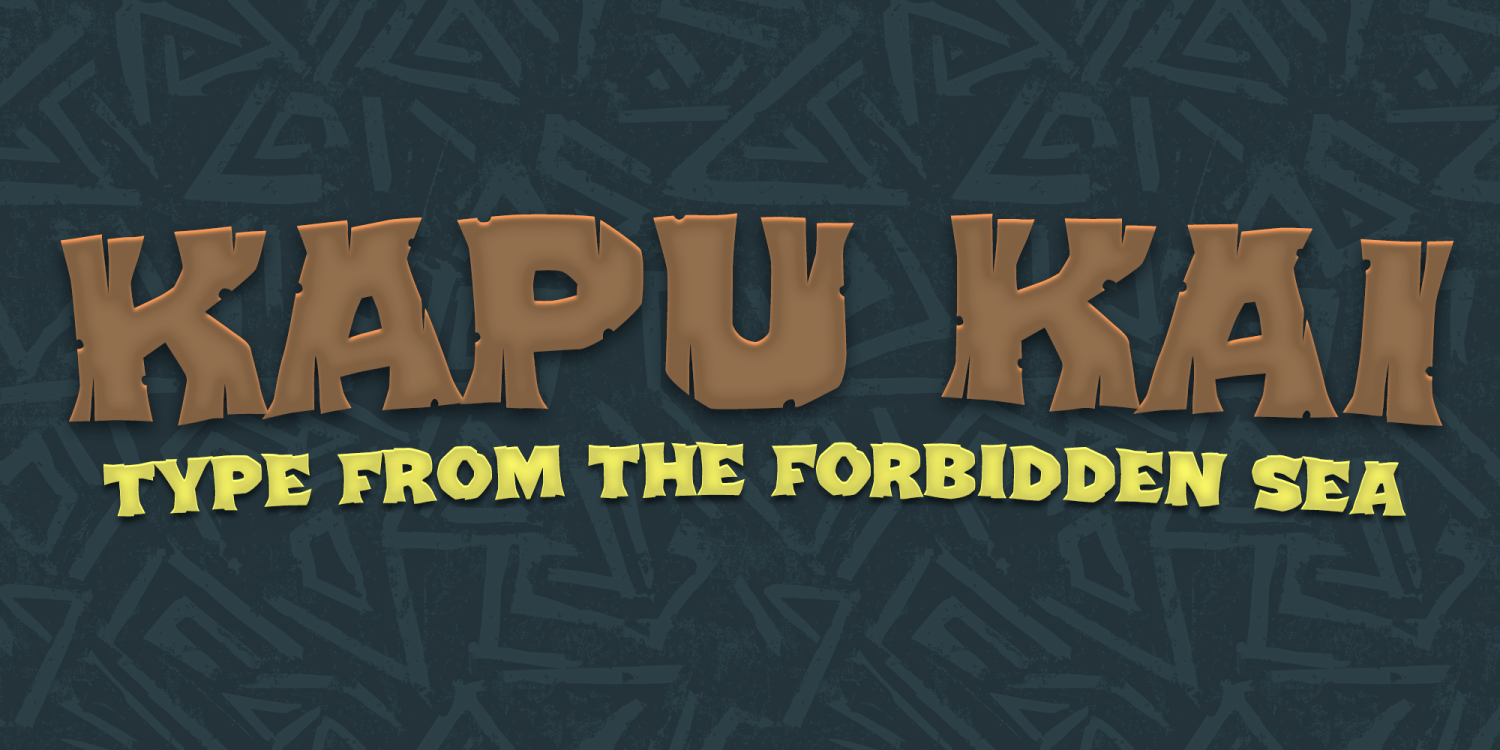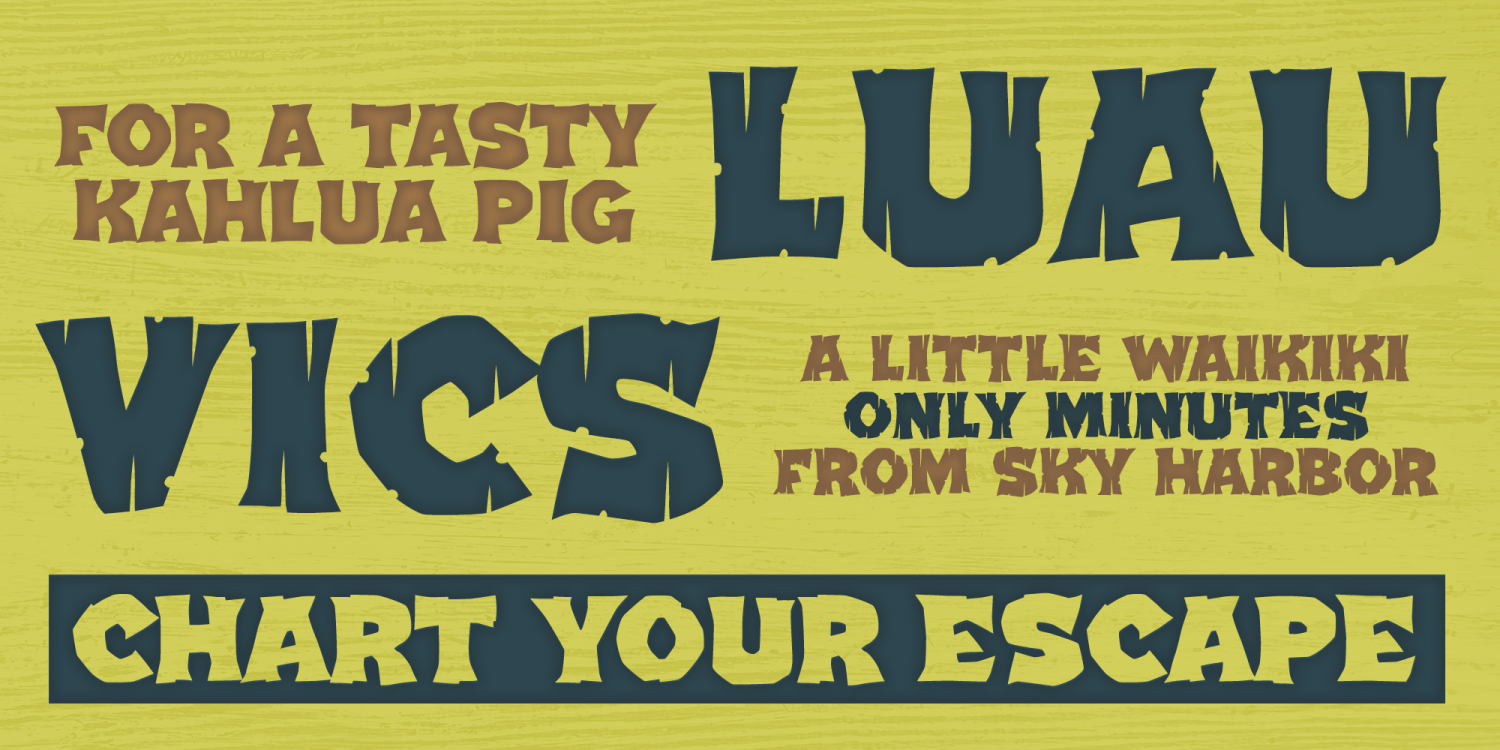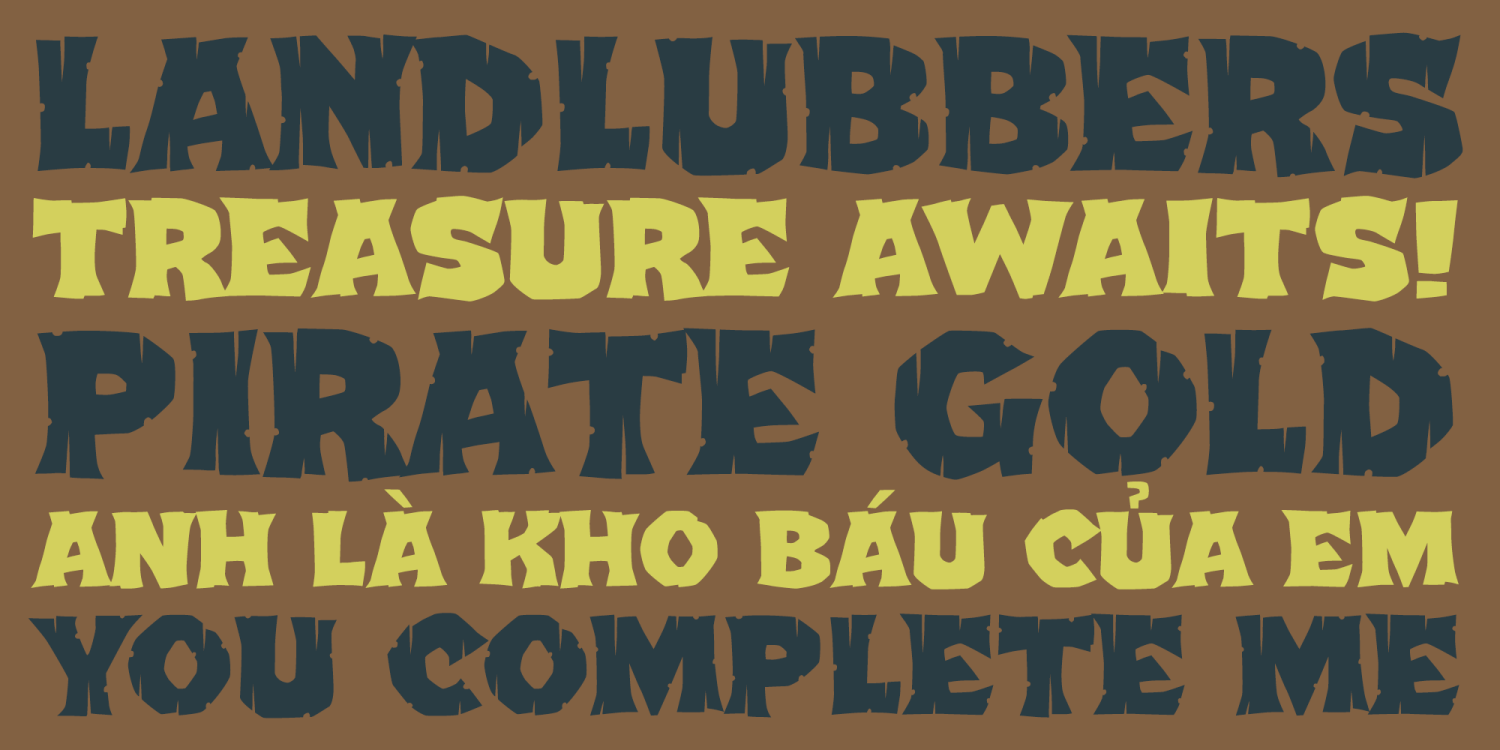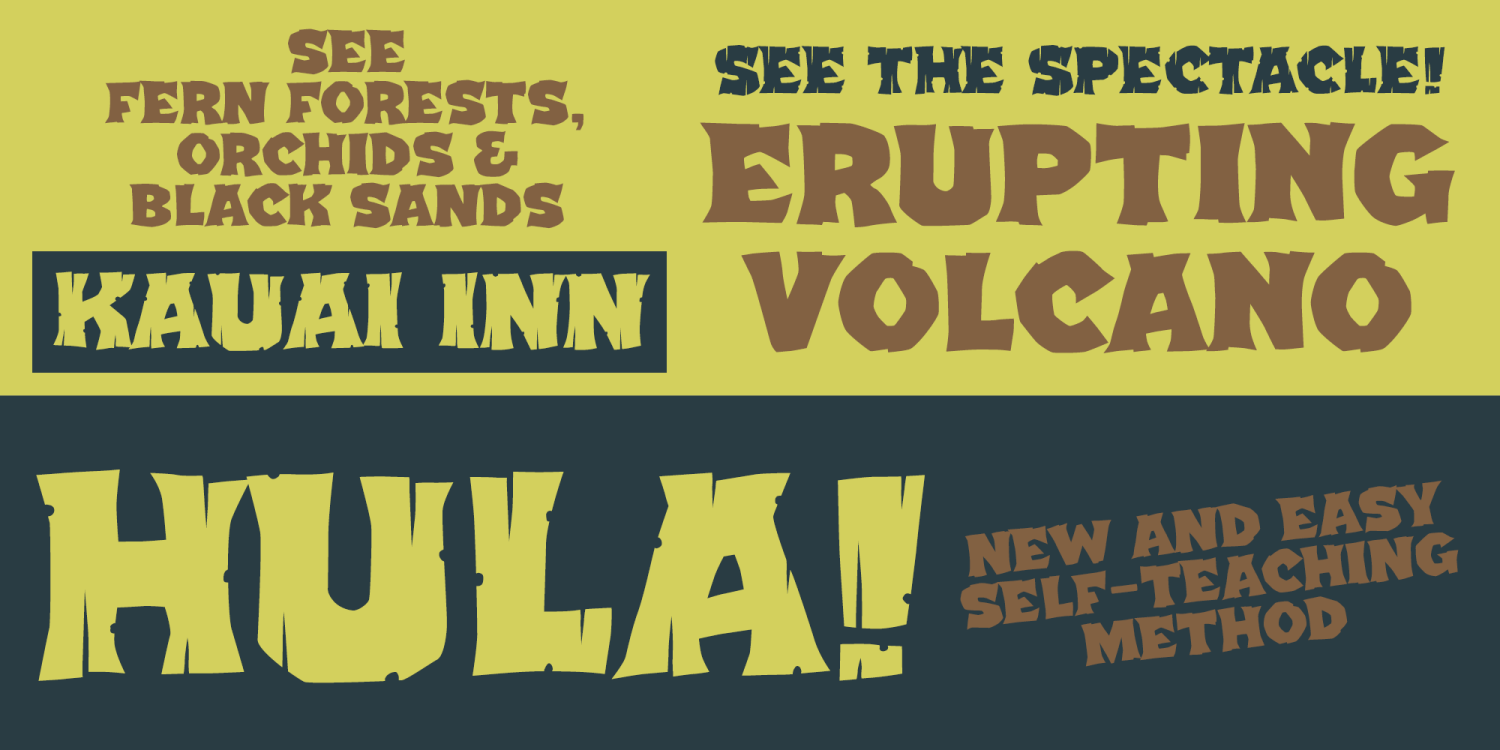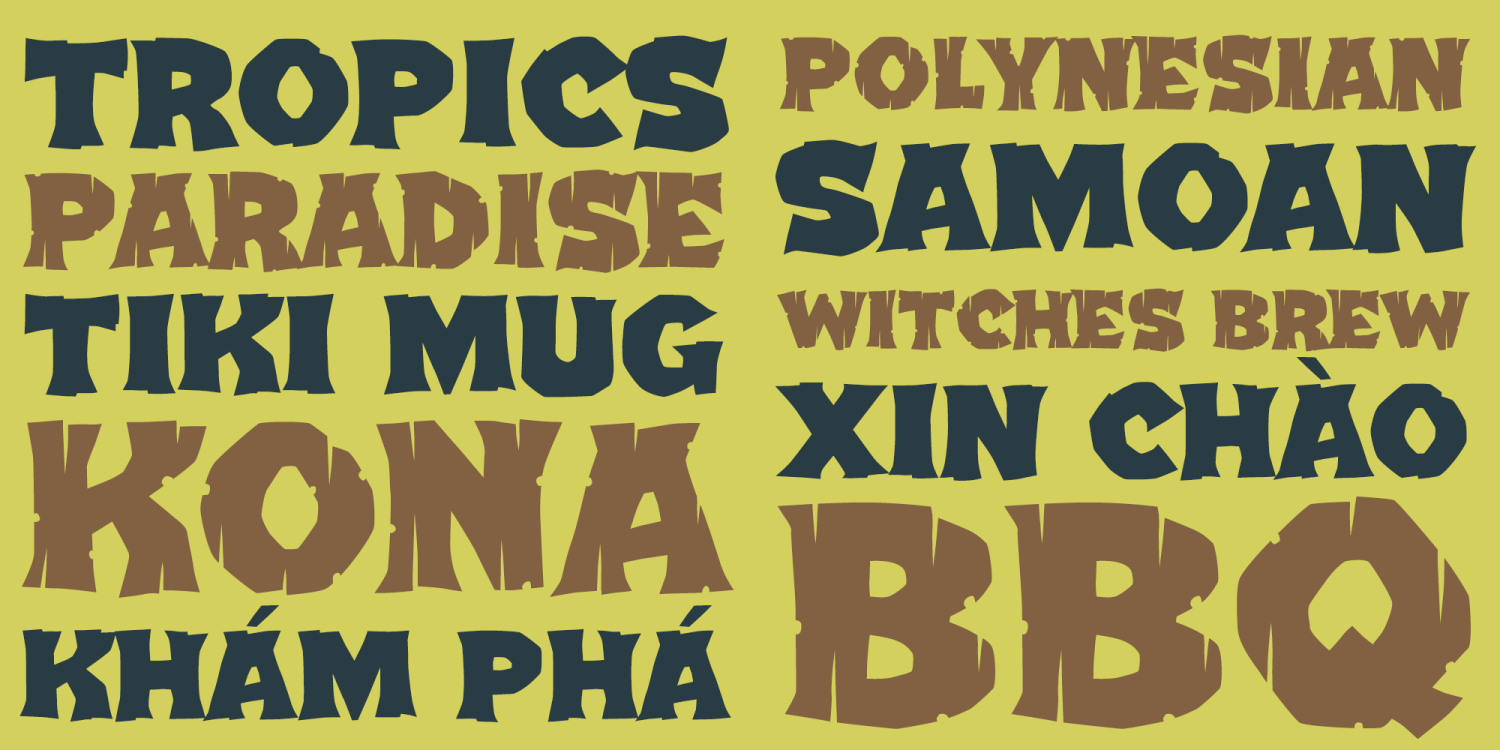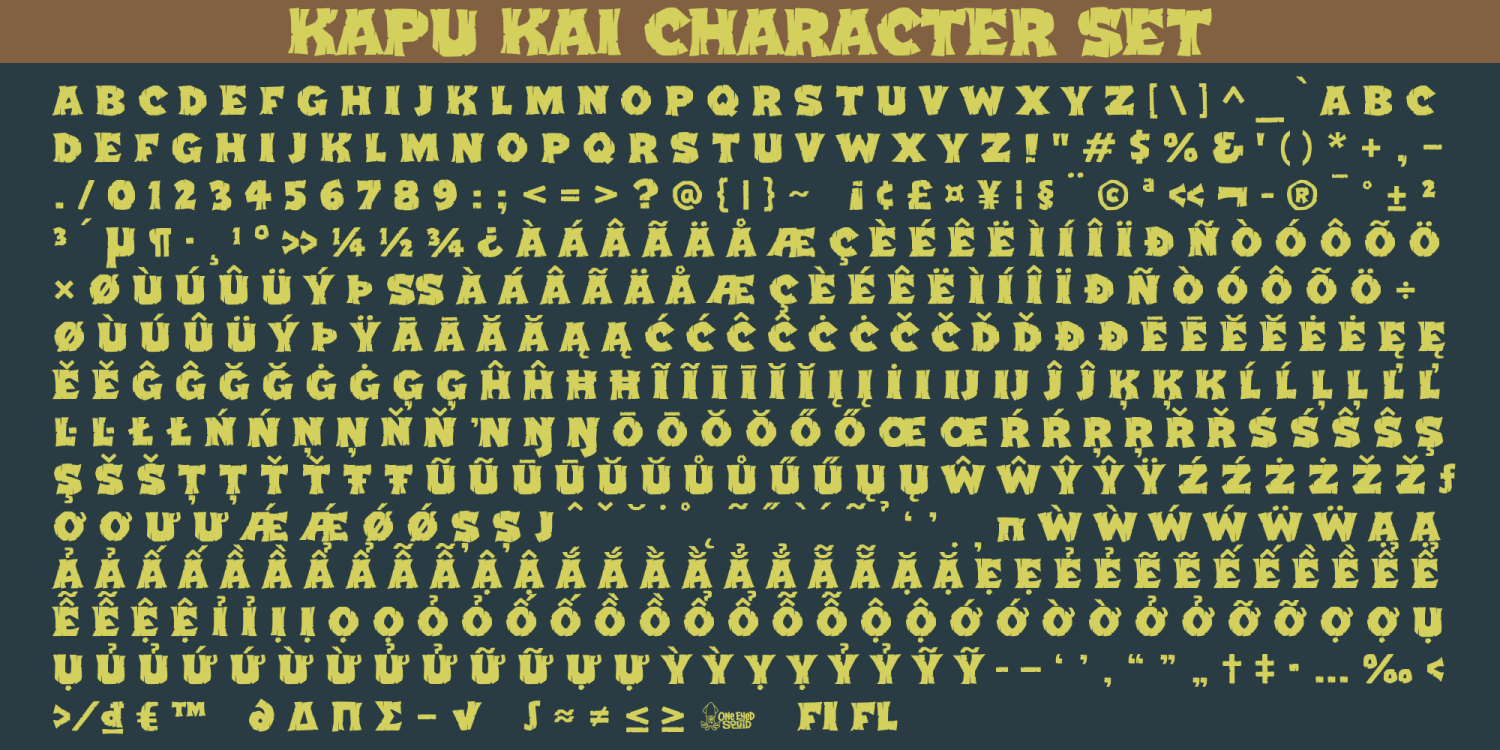
Kapu Kai
Kapu Kai is a tiki-inspired display font family steeped in adventure, mystery, and vintage island flavor. Drawing from Polynesian and pirate-inflected design influences, its bold letterforms bring an exotic, weathered personality to creative work that calls for a tropical retro atmosphere. Available in Aged (Regular) and Solid styles, Kapu Kai offers flexible options for posters, branding, packaging, signage, restaurant graphics, event materials, and other designs that want a strong mid-century tiki lounge or forbidden-seas vibe. Includes extended Latin language support, including Vietnamese.
2 Styles Included
Solid
Regular
Kapu Kai includes 482 glyphs.